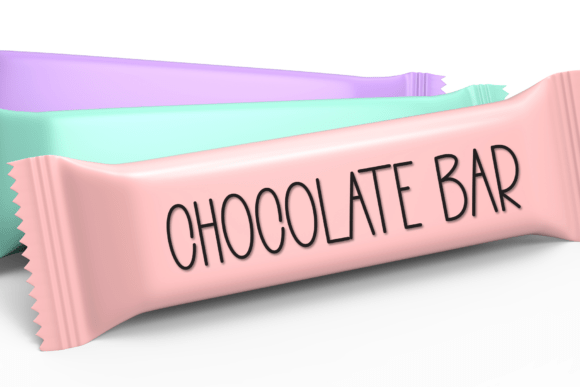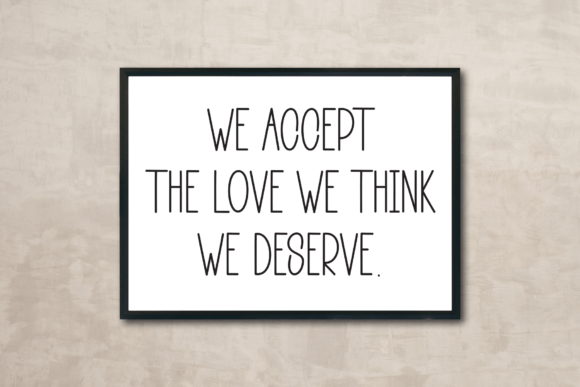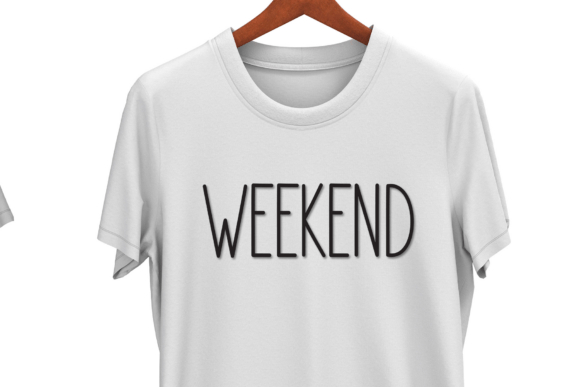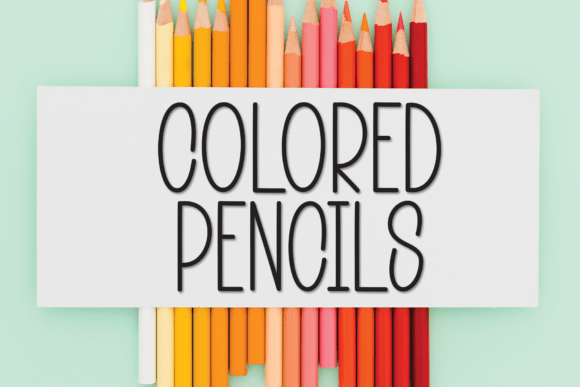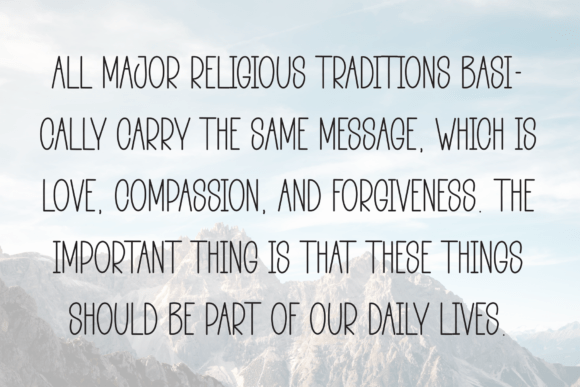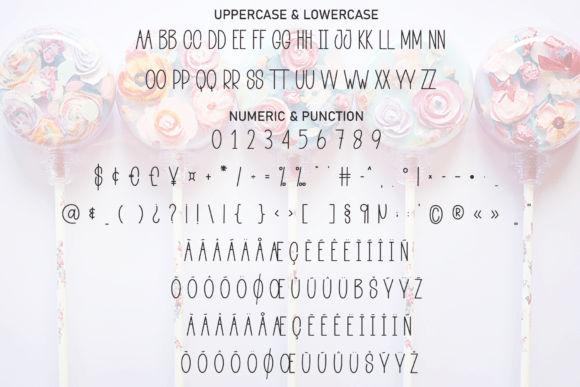
Candy Handmade Font: The Sweetest Addition to Your Design Collection
Are you tired of using the same old fonts in your designs? Look no further than the Candy Handmade Font, a delightful and casual display font that’s sure to bring a smile to your face. With its clean lines, easygoing vibe, and playful charm, this font is perfect for designers and crafters looking to add a touch of fun and relaxation to their creative projects.
What is Candy Handmade Font?
Candy Handmade Font is a unique and cheerful typeface that’s designed to evoke the feeling of a warm summer day. Its clean lines and simple shapes make it easy to read and understand, while its breezy, laid-back feel adds a touch of whimsy to any design. Whether you’re creating a summer poster, event flyer, or playful branding materials, this font is sure to be a hit.
Key Features of Candy Handmade Font
- Clean Lines: The Candy Handmade Font features clean lines and simple shapes that make it easy to read and understand.
- Easygoing Vibe: This font has a breezy, laid-back feel that’s perfect for summer posters, event flyers, and playful branding.
- Playful Charm: The Candy Handmade Font has a playful charm that’s sure to bring a smile to your face.
- Versatile: This font is perfect for a wide range of design projects, from posters and flyers to branding and packaging.
The Candy Handmade Font is a perfect addition to any designer’s or crafter’s collection. Its unique and cheerful design makes it perfect for a wide range of projects, from:
- Summer Posters: Create eye-catching posters for summer events, sales, and promotions.
- Event Flyers: Design fun and playful flyers for events, parties, and gatherings.
- Playful Branding: Add a touch of whimsy to your branding materials, including logos, business cards, and packaging.
- Crafting Projects: Use the Candy Handmade Font to add a personal touch to your crafting projects, including handmade cards, gift tags, and scrapbooking.
Why Choose Candy Handmade Font?
There are many fonts to choose from, but the Candy Handmade Font stands out from the rest. Here are just a few reasons why:
- Unique Design: The Candy Handmade Font has a unique and cheerful design that’s sure to grab attention.
- Easy to Read: The clean lines and simple shapes make this font easy to read and understand.
- Versatile: This font is perfect for a wide range of design projects, from posters and flyers to branding and packaging.
- Fun and Playful: The Candy Handmade Font adds a touch of fun and playfulness to any design.
- Graphic Design: Use the Candy Handmade Font in graphic design projects, including posters, flyers, and branding materials.
- Digital Design: Use this font in digital design projects, including social media graphics, email newsletters, and website designs.
- Crafting: Use the Candy Handmade Font in crafting projects, including handmade cards, gift tags, and scrapbooking.
The Candy Handmade Font is a unique and cheerful typeface that’s perfect for designers and crafters looking to add a touch of fun and relaxation to their creative projects. With its clean lines, easygoing vibe, and playful charm, this font is sure to be a hit. Whether you’re creating summer posters, event flyers, or playful branding materials, the Candy Handmade Font is the perfect choice.